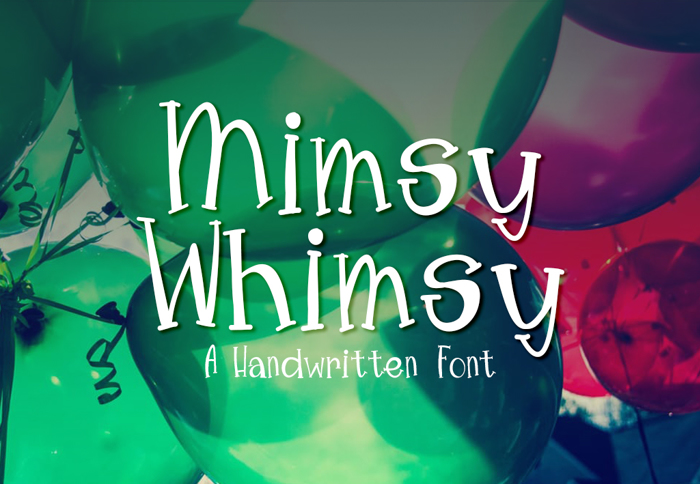
MimsyWhimsy Font
A fun fanciful font perfect for invitations, t-shirts, and much more. Free font is for personal use only. Please pay for commercial use at http://creativemarket.com/pajamarama